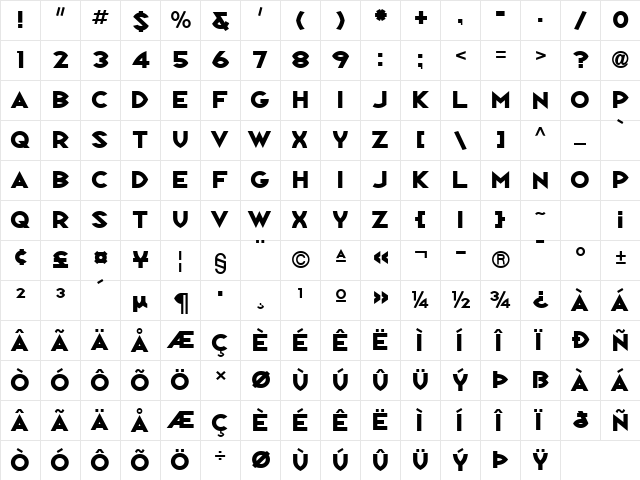
Republik Sans ICG 02 Regular
Design Context for Republik Sans ICG 02 Typeface
Republik Sans ICG 02 is a composed and adaptable typeface that performs quietly and consistently across a wide range of design contexts.